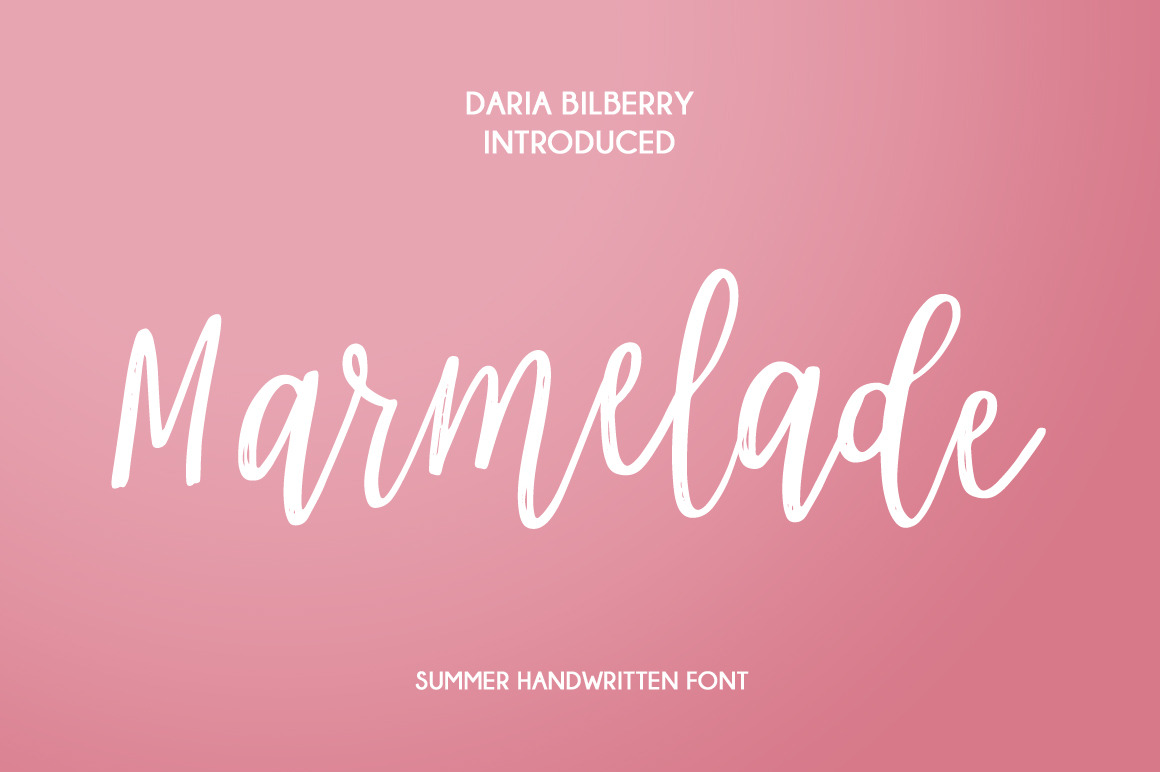
Marmelade Summer Handwritten Font
Meet new Summer Handwritten font MARMELADE!
MARMELADE - a new handwritten font. Very suitable for greeting cards, branding materials, business cards, quotes, posters, and more!